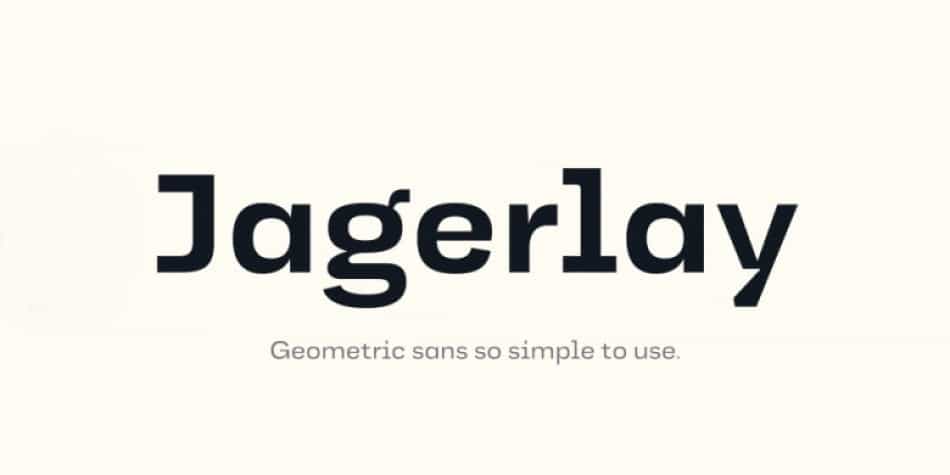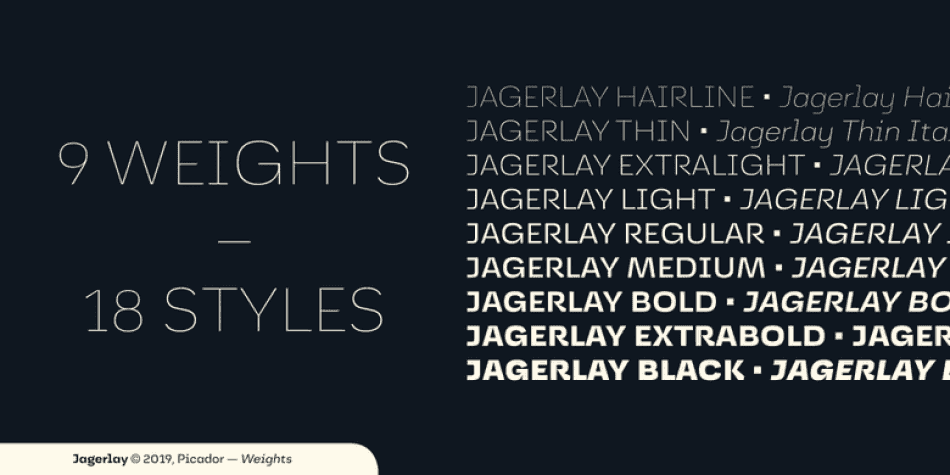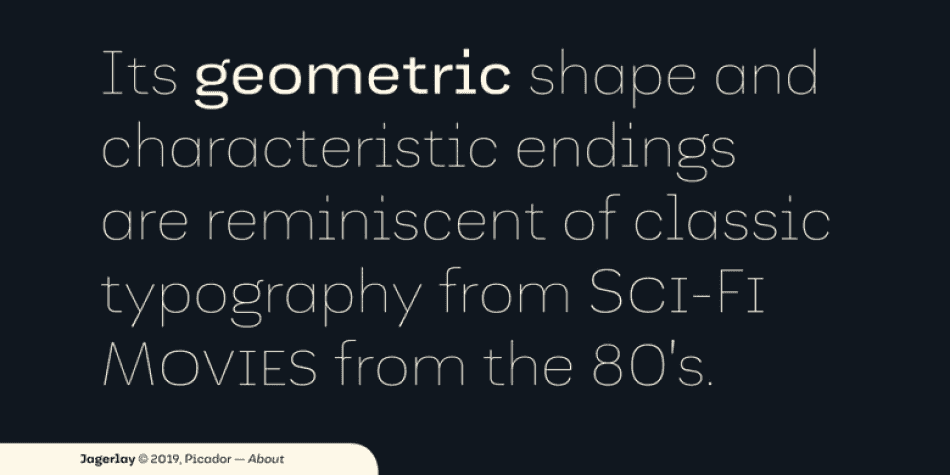
Jagerlay Typography was designed to accomodate the complex information found in corporate identity documents, presentations and office documents. With its geometric design and distinctive ends that recall classic sci-fi movie typography from the 80’s. Jagerlay is highly user-friendly – you won’t find more user-friendly fonts anywhere! Additionally it can quickly integrate with other fonts in an instant – be they serif, display or script fonts.